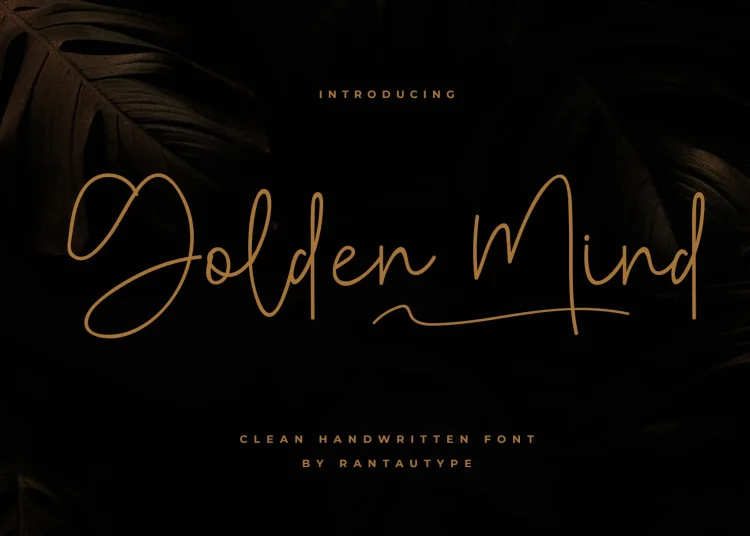
Golden Mind Font
Golden Mind is a clean and stylish handwritten font that combines natural elegance with readability. Its classy and catchy design makes it a versatile choice for a variety of applications, including watermarks on photography, signature or logo designs, quotes, album covers, business cards, and more. Golden Mind is crafted to enhance your work with its sophisticated and easy-to-use style, adding a touch of refinement to any project.
With its natural flow and stylish appearance, Golden Mind is ideal for creating high-impact visuals that stand out. Whether you’re working on personal projects or professional designs, this font brings a level of elegance and class that elevates your work to a new level.